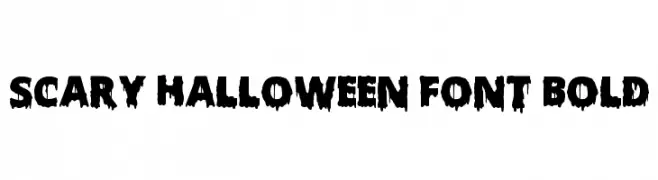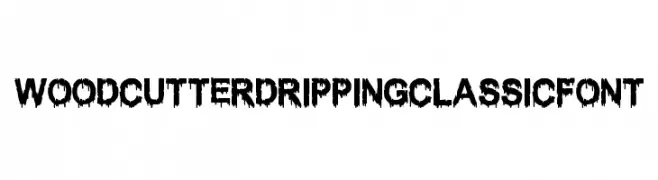
A dripping, eerie font perfect for horror themes.
A bold, shadowed font with a distressed, eerie style, perfect for horror themes.
A bold, dripping font ideal for horror or thriller themes.
A condensed, eerie font with irregular, jagged letterforms perfect for horror themes.
A bold, dripping font perfect for spooky and dramatic designs.
A bold, dripping font perfect for spooky Halloween designs.
A spooky, dripping font ideal for Halloween themes.